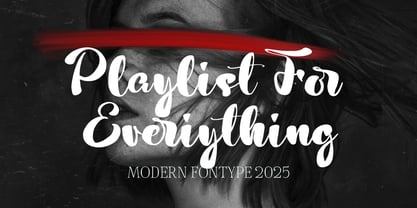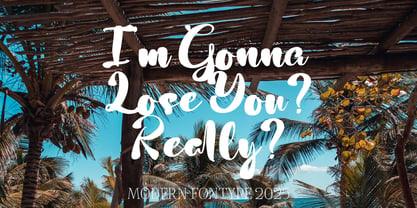
Father Alora
by Naatypo
The Father Alora Font Family was designed by Kurnia Elis Setyorini and published by Naatypo. Father Alora contains 1 styles. More about this family
Father Alora was created to help you make your digital images even more beautiful. A type of font with it’s bold and unique shaped font, will make your design catches their eyes. This font is ideal for logos, branding, packaging, apparel, signage, and social media graphics. The script font exudes energy and personality, while the sans-serif counterpart ensures clarity and versatility.
Designers: Kurnia Elis Setyorini
Foundry: Naatypo